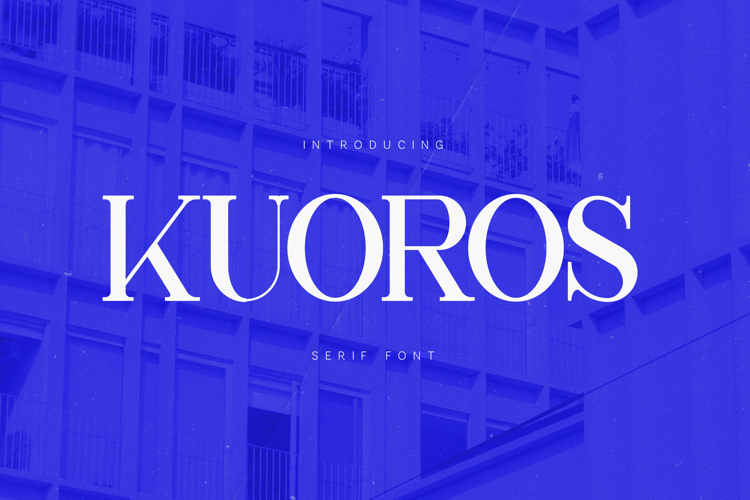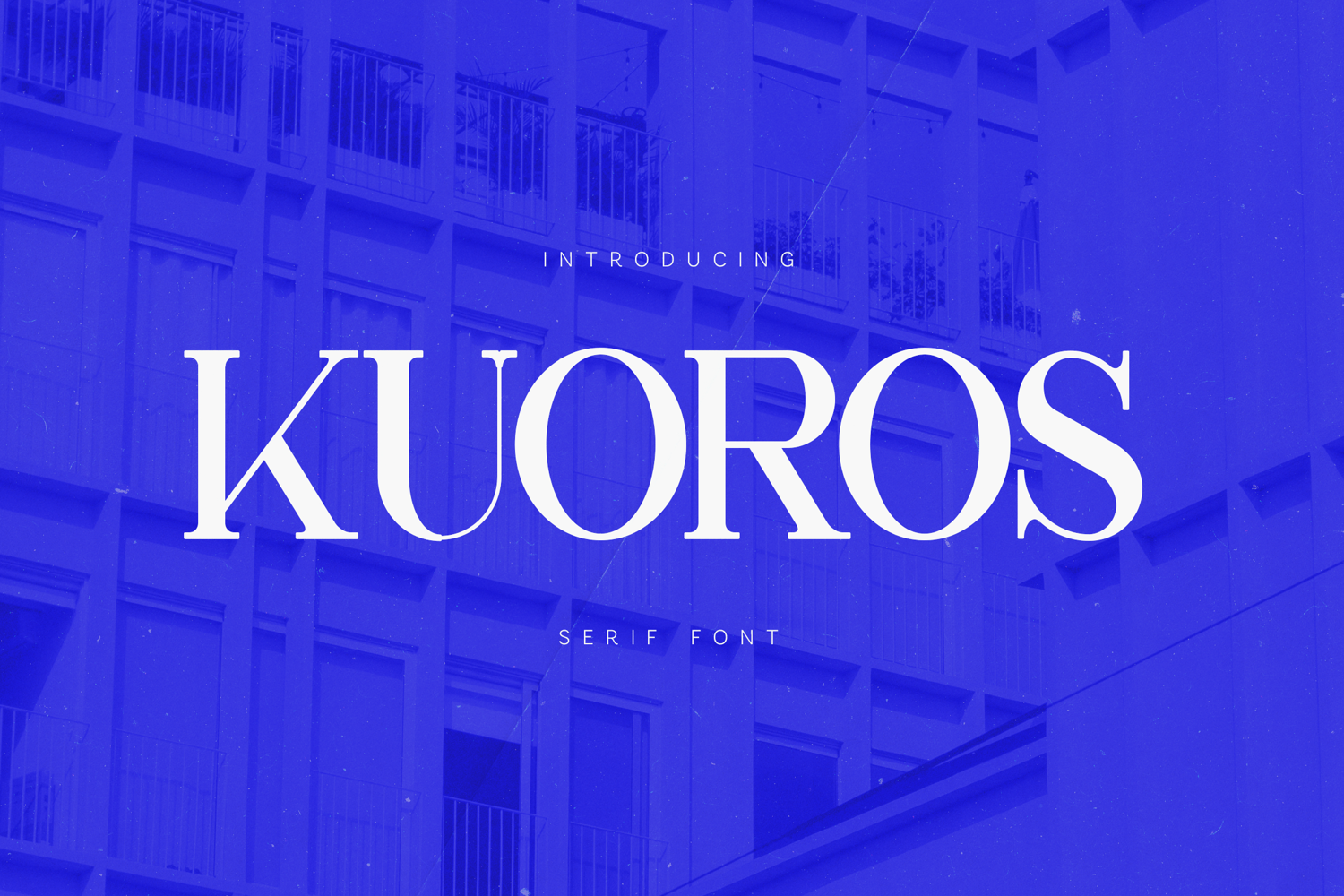
Kuoros Elegant Modern Serif Font
Kuoros is a sophisticated modern serif typeface designed to combine timeless elegance with contemporary typographic clarity. The font features refined serif structures, balanced proportions, and smooth transitions between thick and thin strokes, creating a visually harmonious and professional type system suitable for a wide range of design applications.
The design language of Kuoros focuses on elegance and readability. Each character has been carefully crafted to maintain a consistent rhythm across words and sentences, resulting in a typeface that feels both polished and highly legible. The smooth curves, delicate serif terminals, and balanced letterforms give Kuoros a refined personality that works beautifully in modern editorial and display typography.
Kuoros carries a clean modern aesthetic while still preserving the charm of classic serif typography. Its graceful structure allows designers to create compositions that feel premium, stylish, and visually confident. The typeface performs exceptionally well in headlines, magazine layouts, branding systems, packaging design, posters, book covers, and sophisticated visual identities.
With its elegant serif details, modern proportions, and balanced structure, Kuoros offers a versatile typographic tool for designers seeking a refined and contemporary serif typeface.